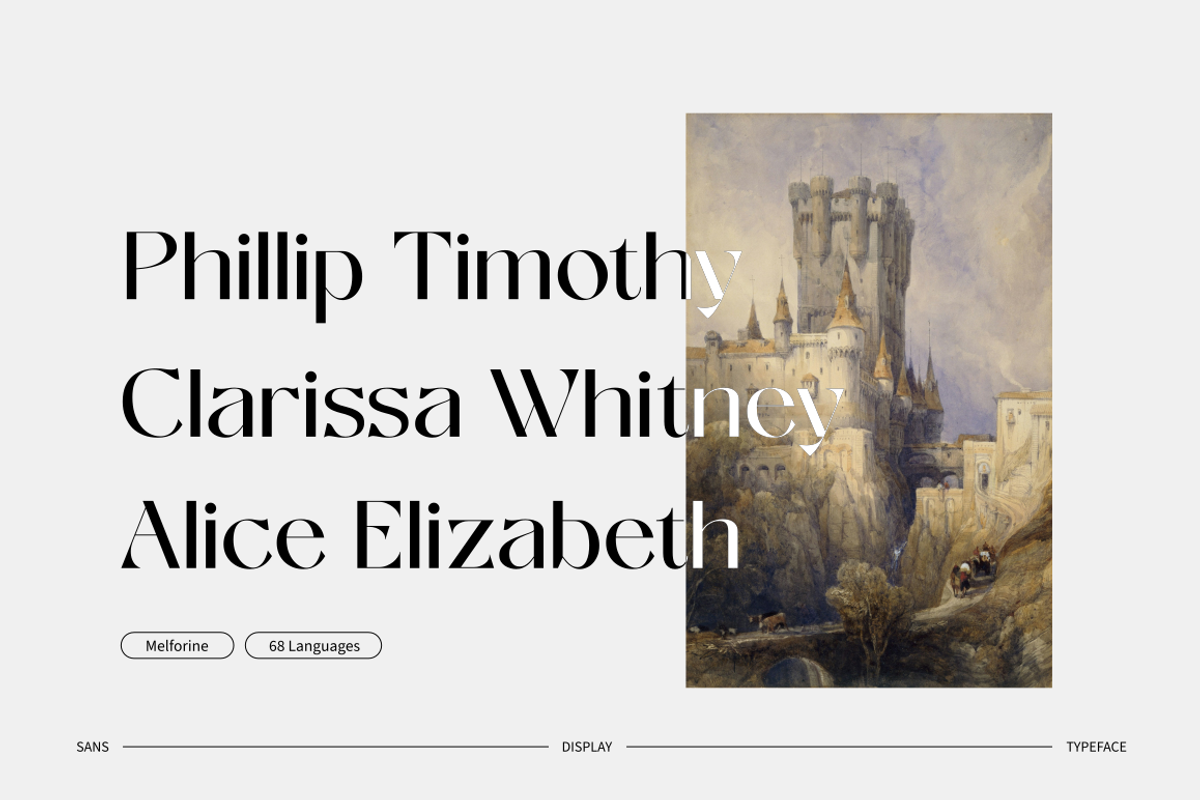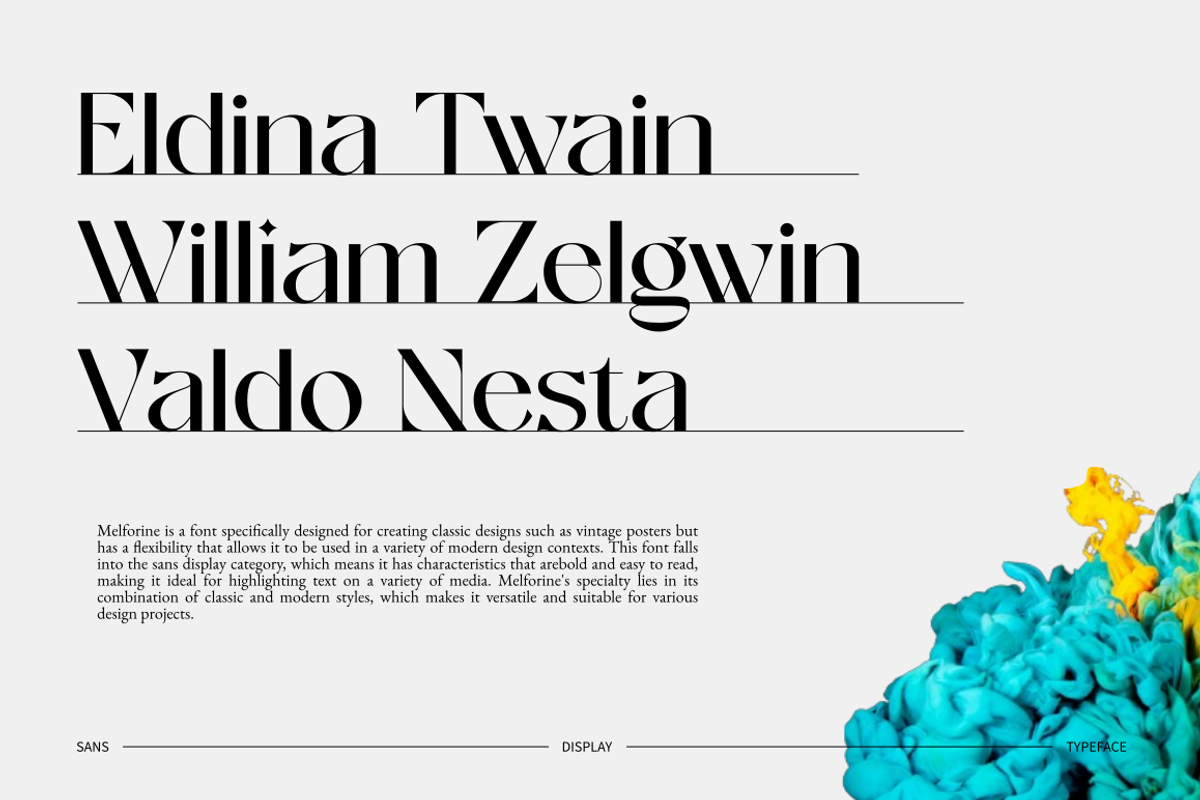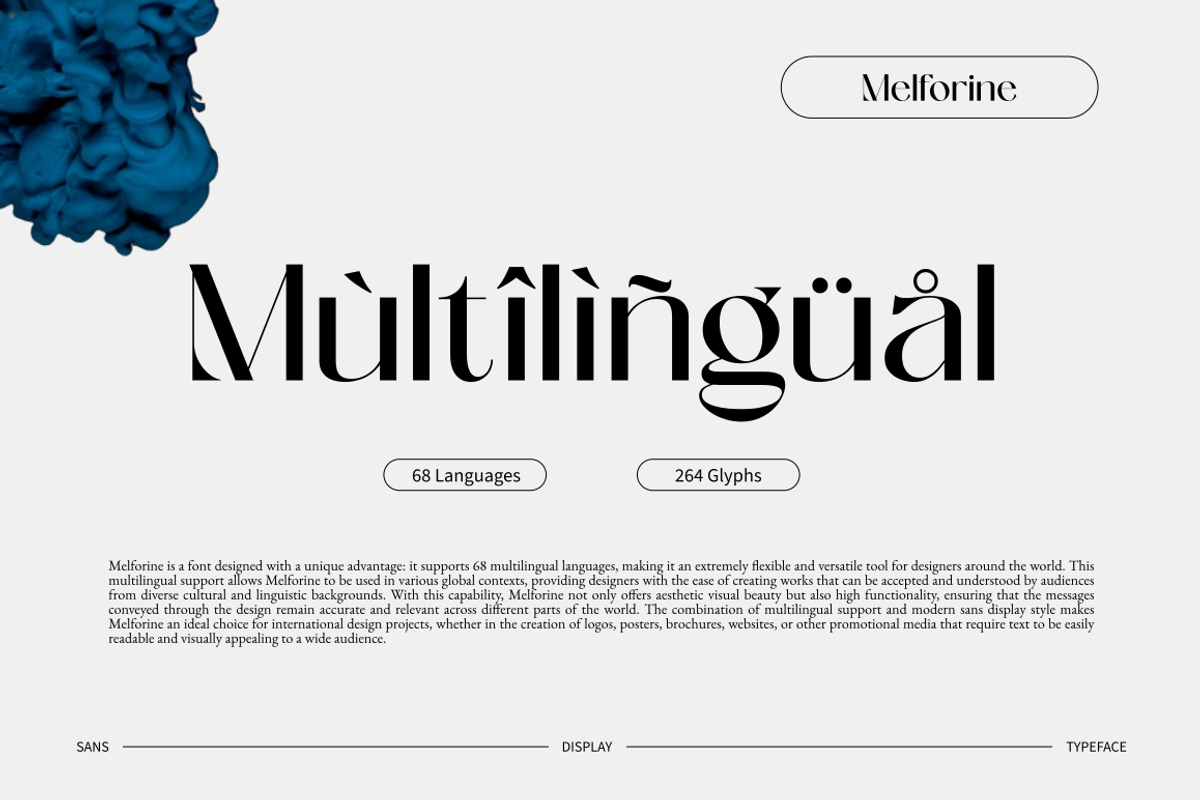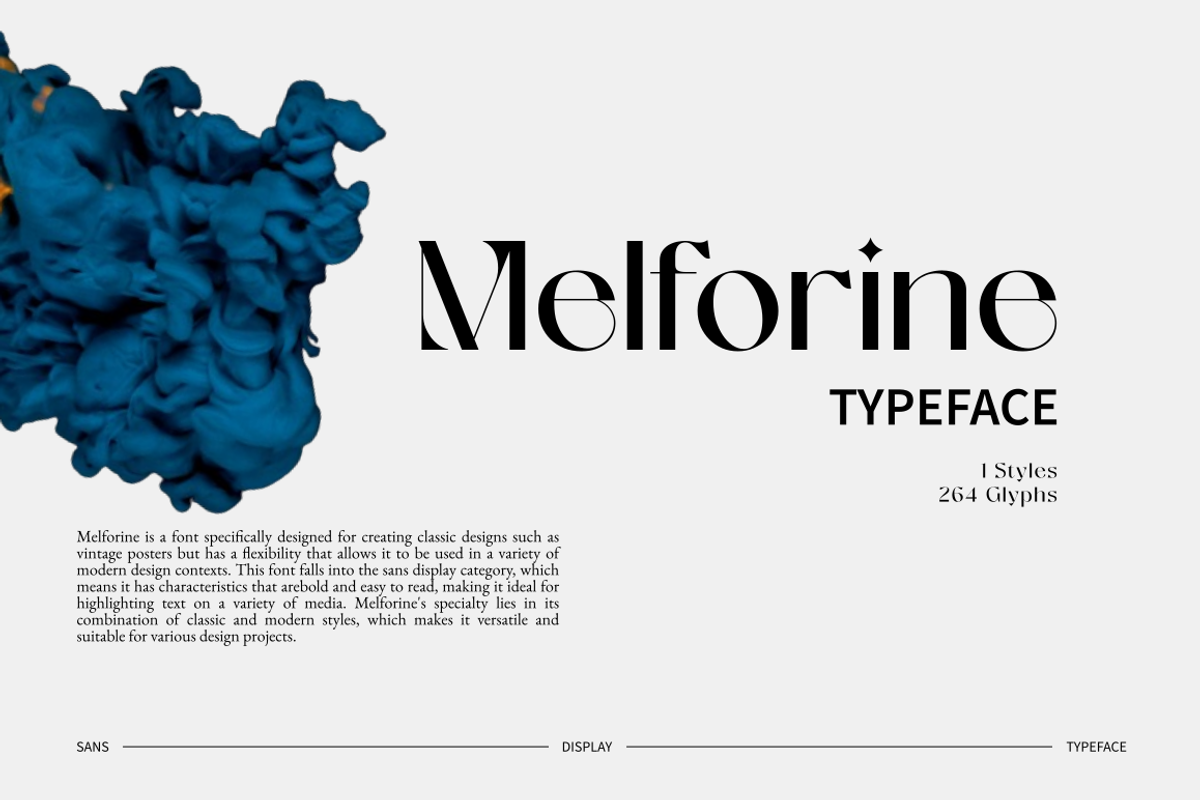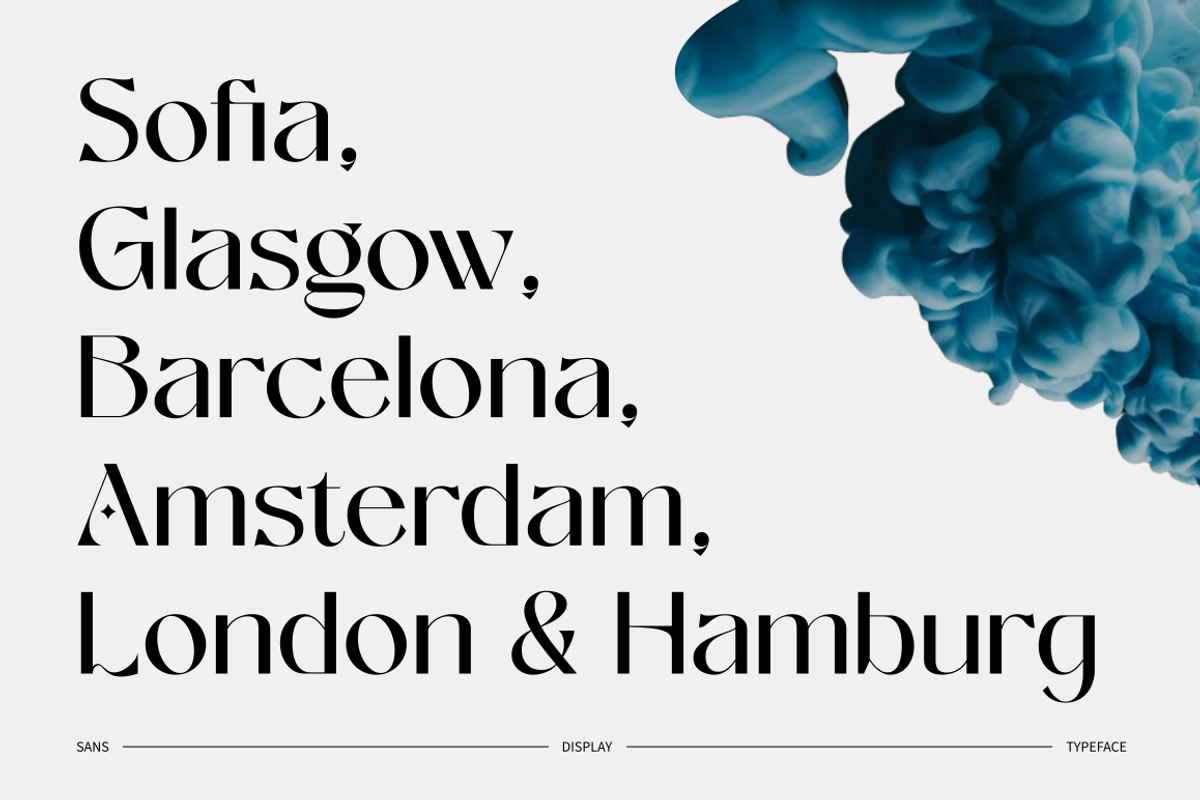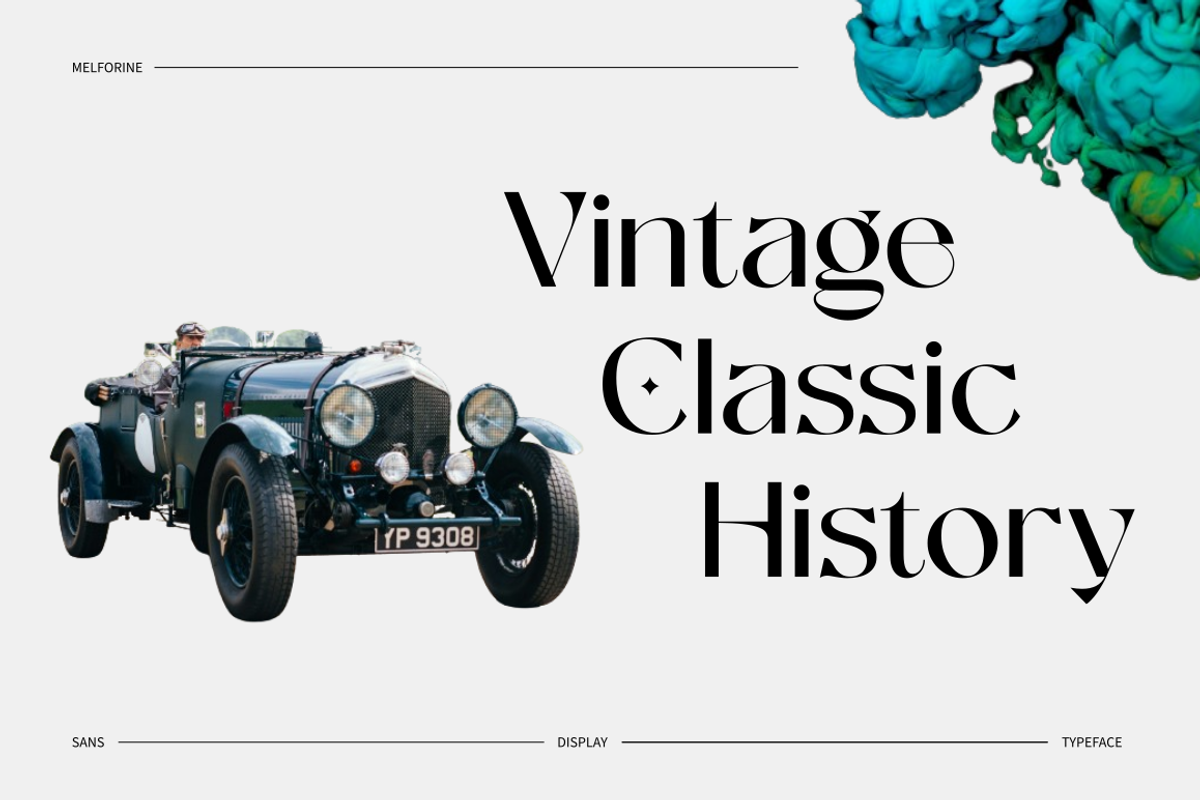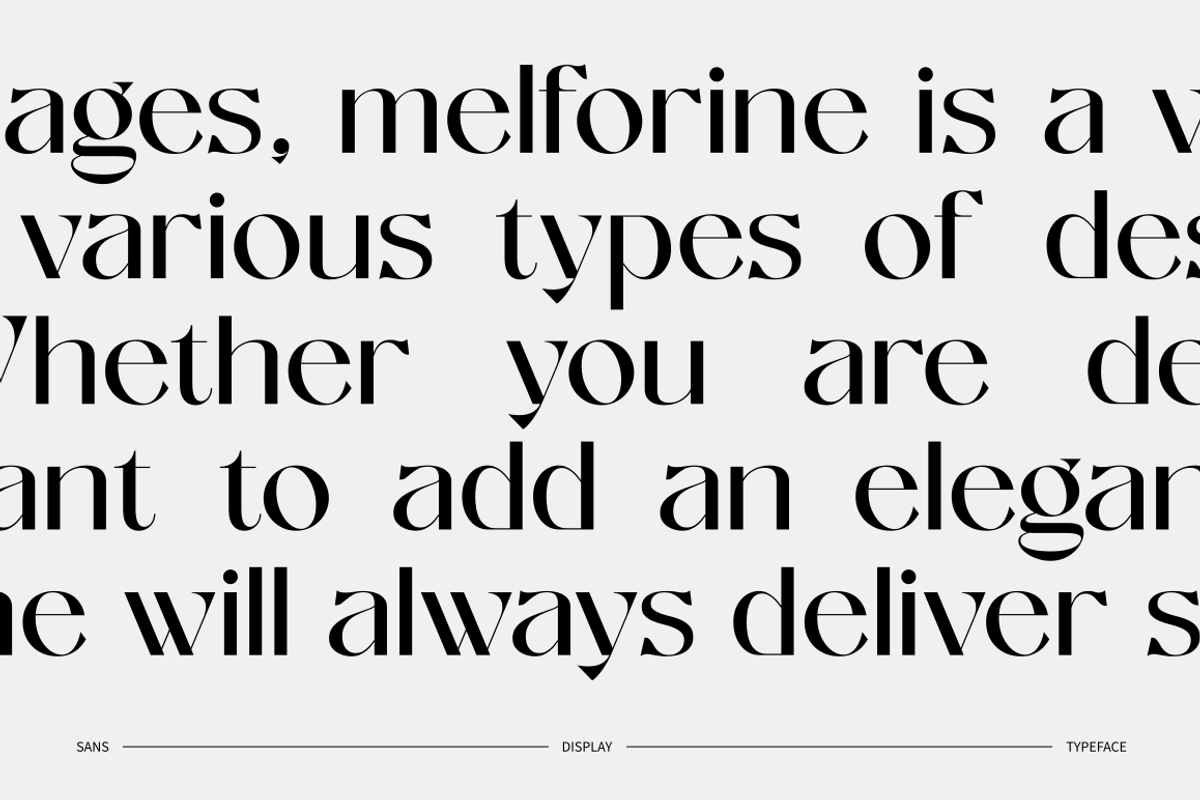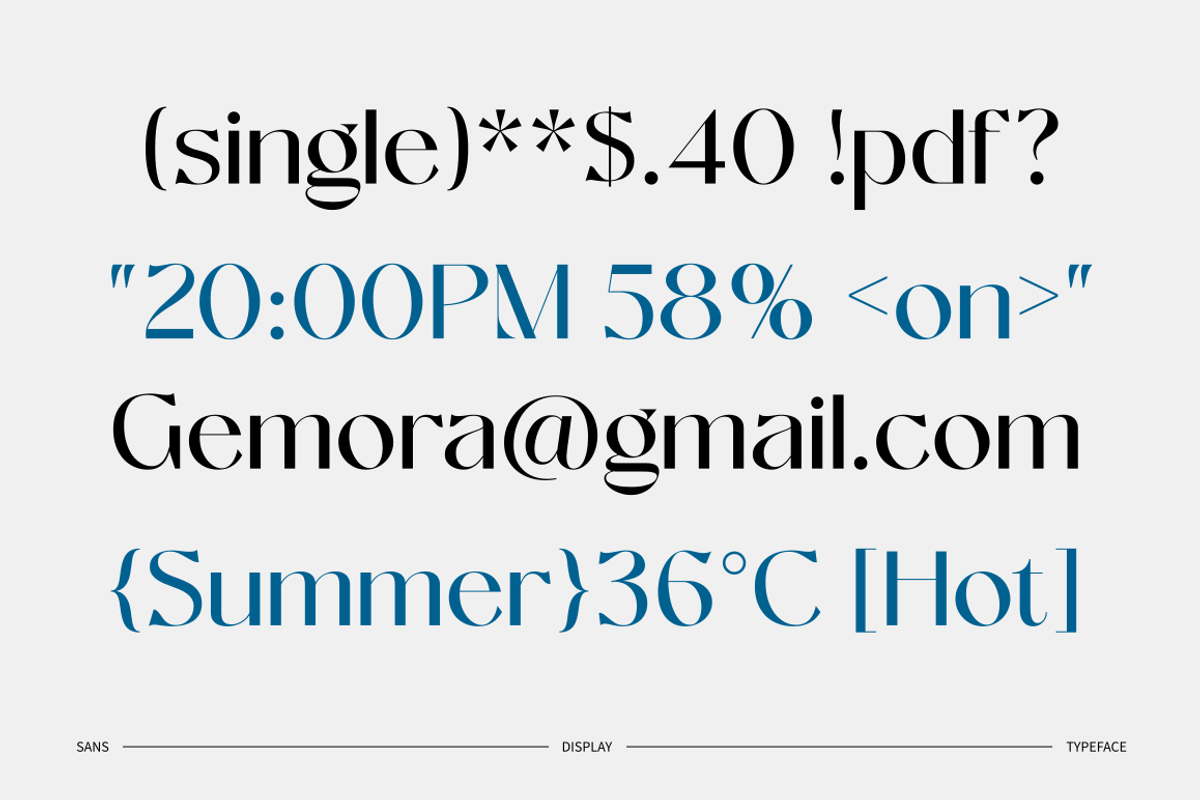
Melforine | History Display Font
Melforine is a font specifically designed for creating classic designs such as vintage posters, but has a flexibility that allows it to be used in a variety of modern design contexts. This font falls into the sans display category, which means it has characteristics that are bold and easy to read, making it ideal for highlighting text on a variety of media. Melforine’s specialty lies in its combination of classic and modern styles, which makes it versatile and suitable for various design projects.
In its classic design, Melforine is able to give a strong nostalgic feel, reminding us of the era of vintage posters with an elegant and artistic aesthetic touch. This makes it the perfect choice for projects that want to provide a retro feel or reinforce a sense of history, such as vintage-themed event posters, product packaging designs with a classic touch, or even interior designs that embody the concept of a bygone era.
However, Melforine is not just limited to using classic designs. Its clean and modern sans display style makes it very relevant in a contemporary design context. This font can be easily integrated into various modern designs such as corporate branding, digital advertising, social media, and websites. The combination of classic and modern elements in Melforine creates a unique visual appeal, ensuring that text using this font will always stand out and attract attention.
With all these advantages, Melforine is a versatile font choice and is able to bring various types of designs to life with its distinctive touch. Whether you are designing an artistic vintage poster or want to add an elegant modern touch to your project, Melforine will always deliver satisfying results.
Uppercase and lowercase letters
Numbering and Punctuation